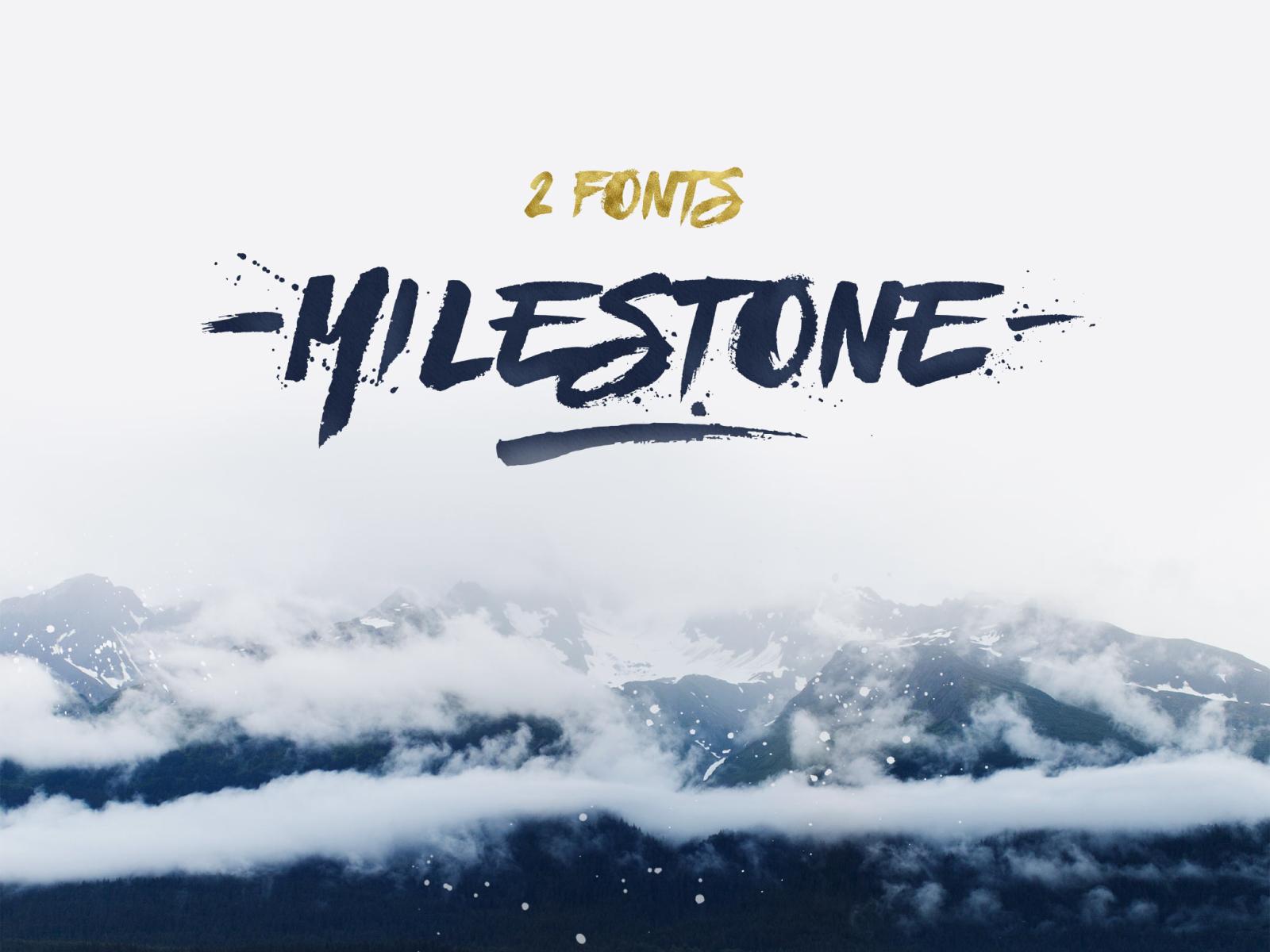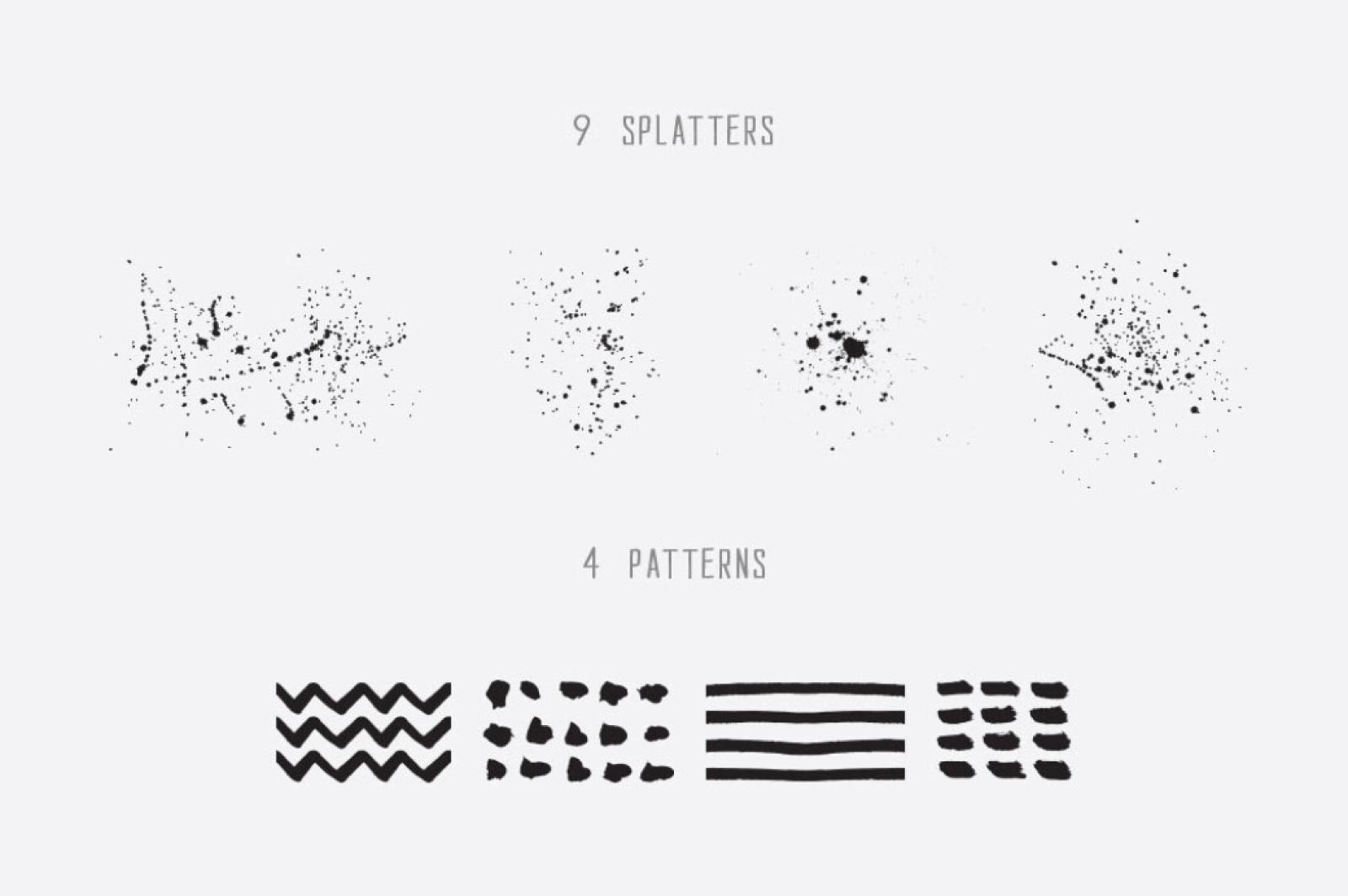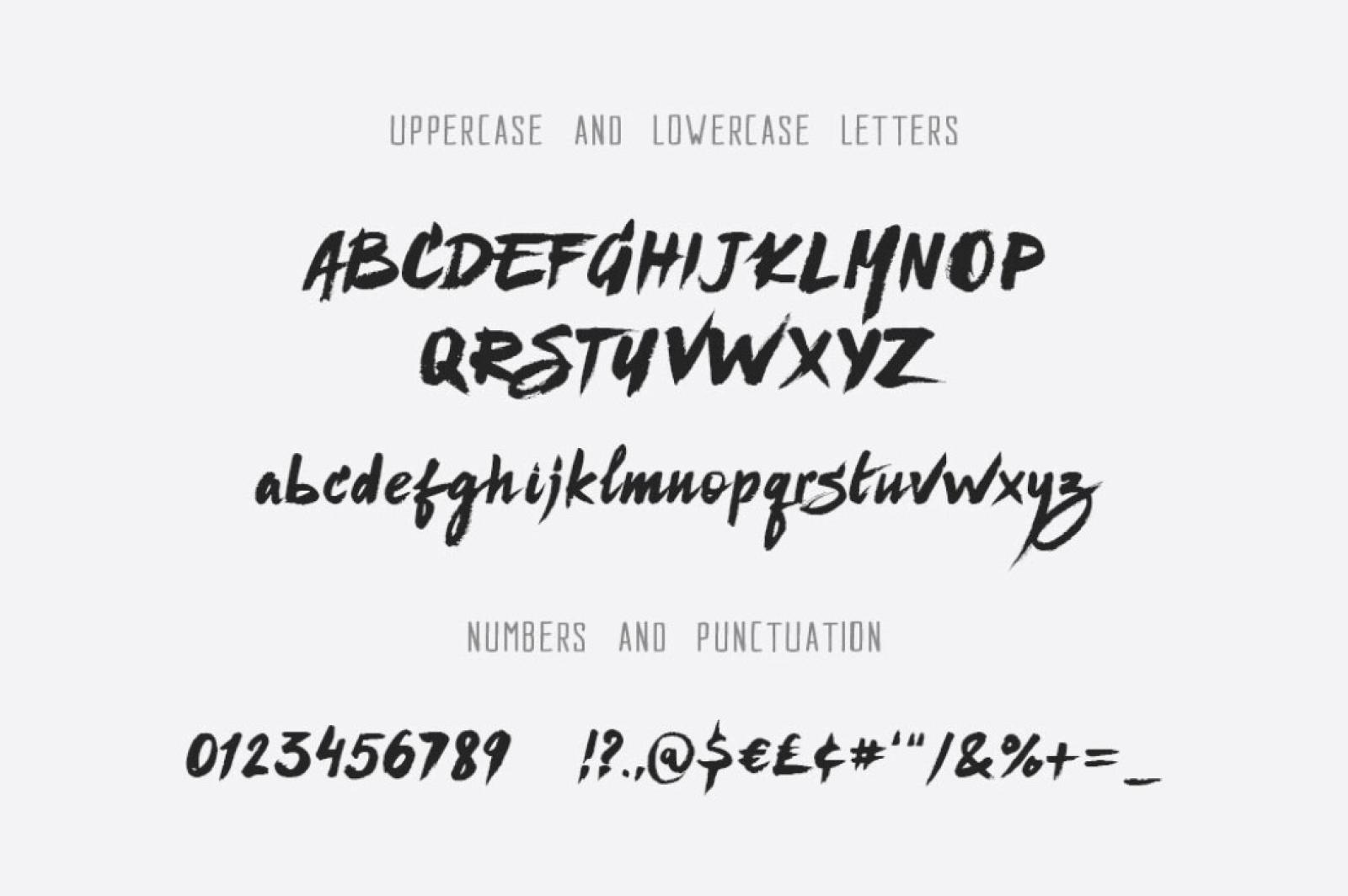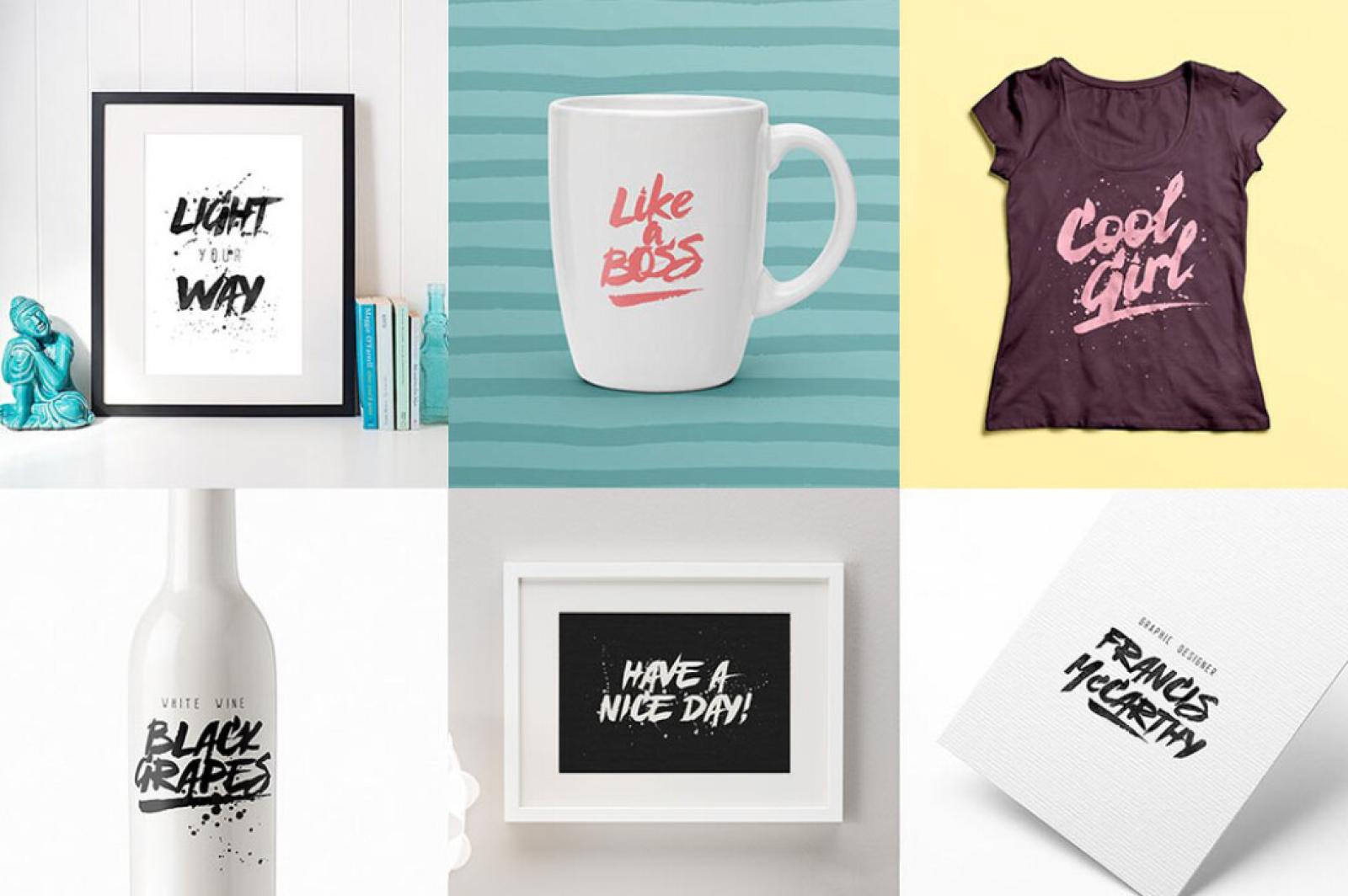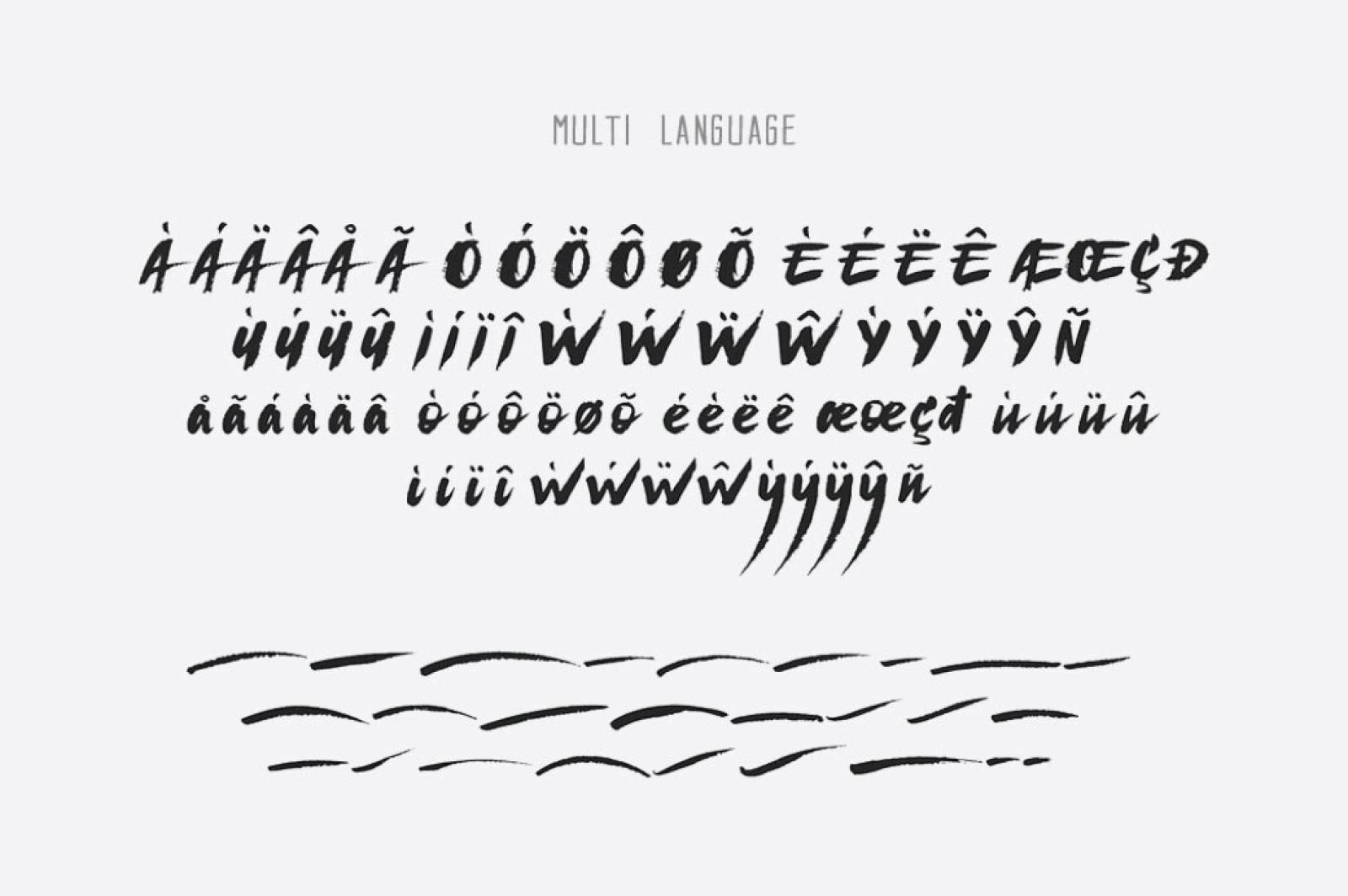
Milestone Font Duo
Amazed to present not a single premium font, but premium brush and grotesque fonts, perfectly combining with each other. Like lemon and honey and hot tea served together!
Let us tell you more about these guys. If the first one represents authentic custom-made hand lettering, the second one is perfect for supporting text, and the bonus of 26 swashes to bring every logo to perfection. Call it a teamwork, bonds of a font friendship or anything else they don't become less cool because of that!